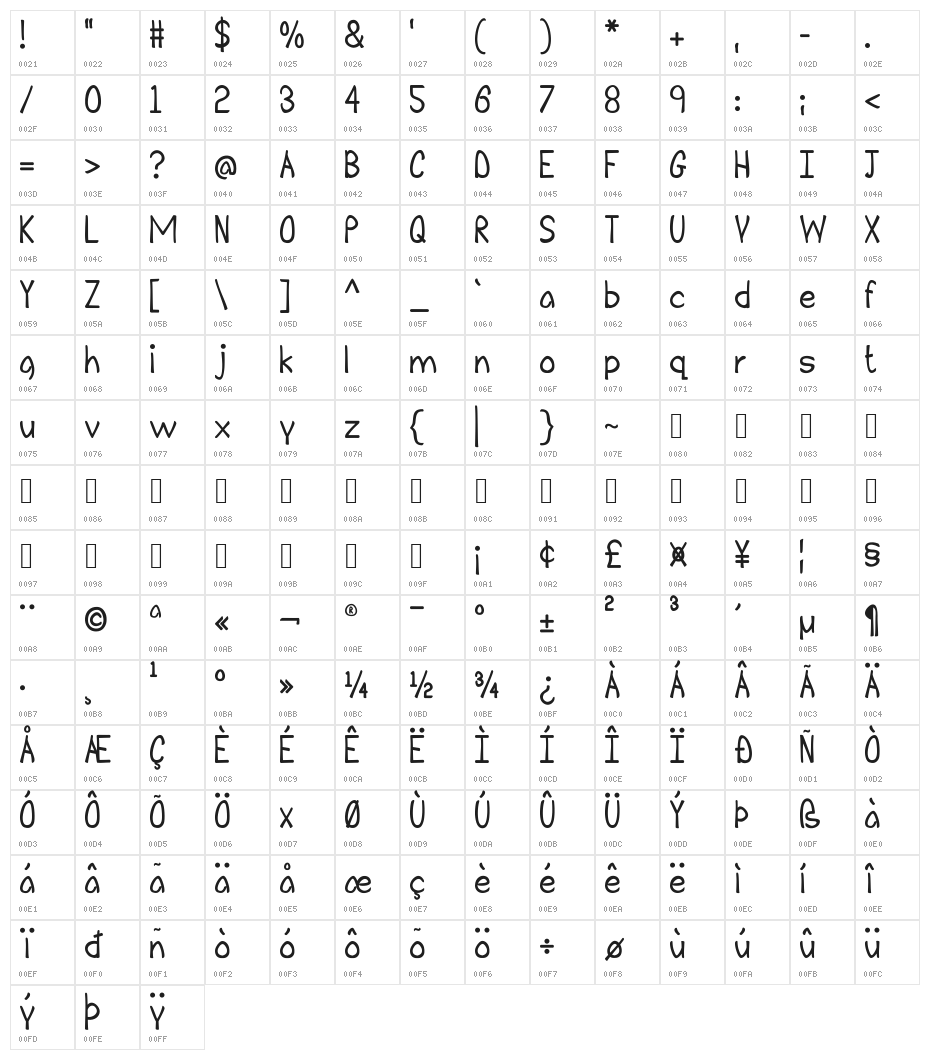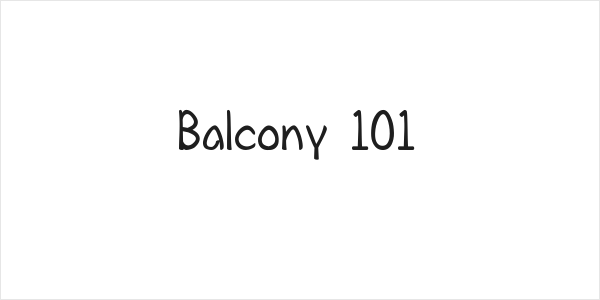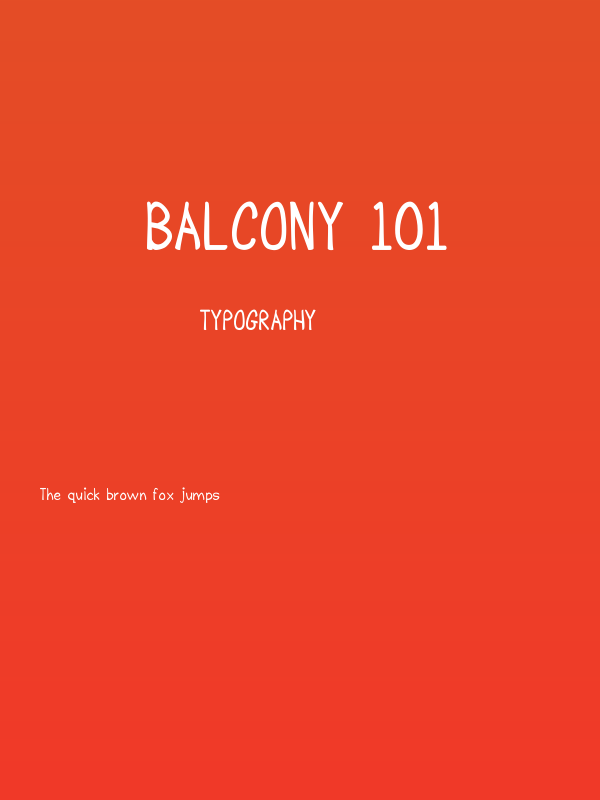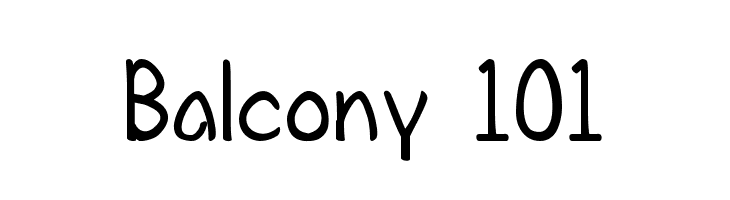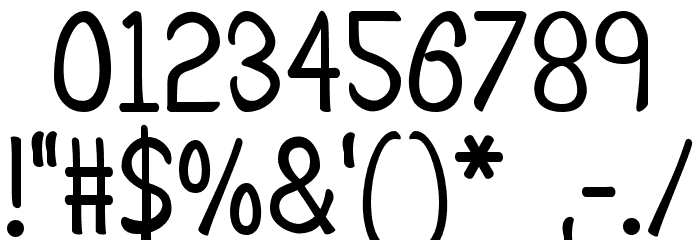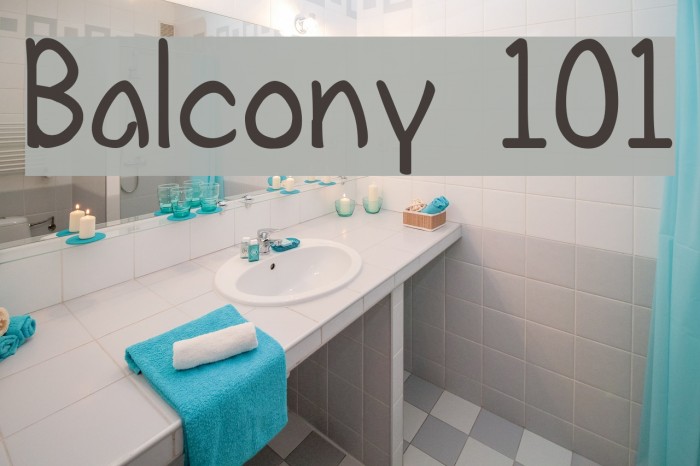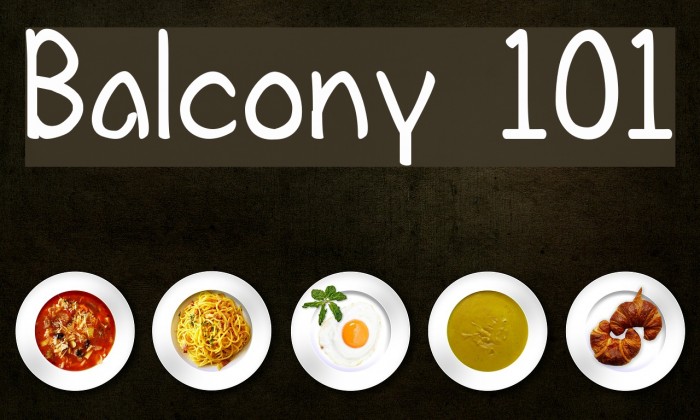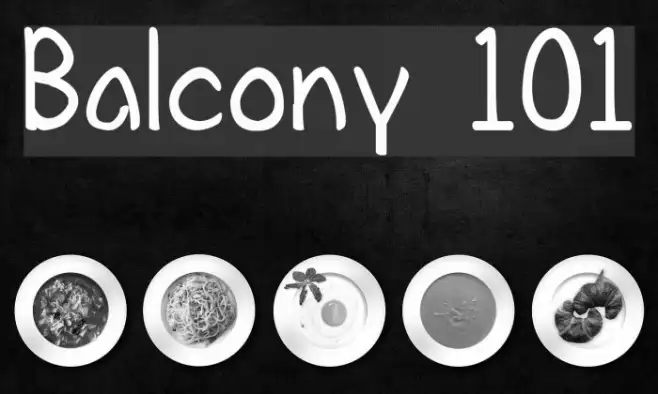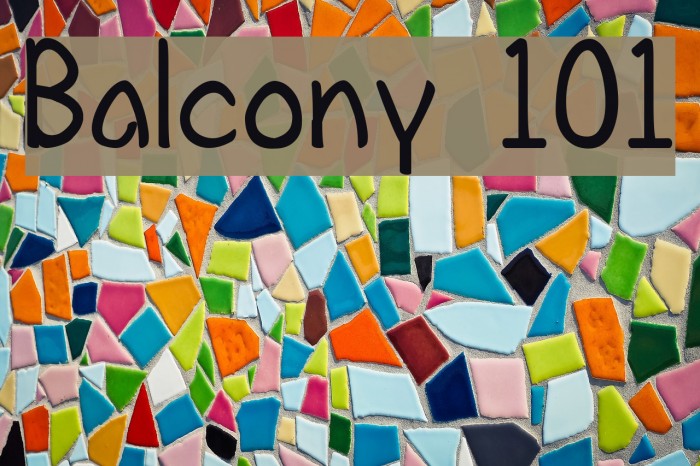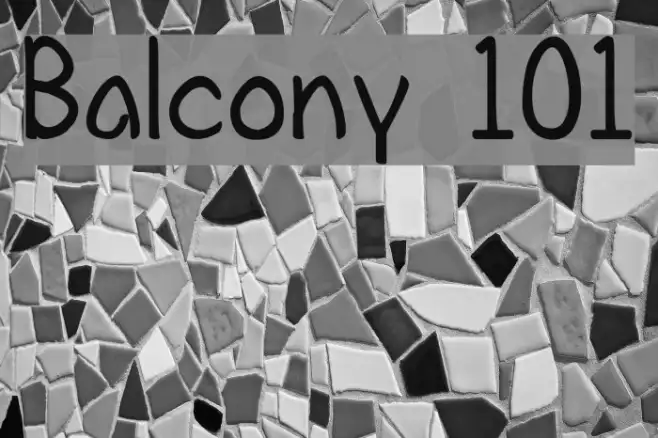
Balcony 101 Font
Balcony 101 Description
This font features a playful and casual handwritten style, characterized by its rounded and slightly irregular letterforms. The uppercase and lowercase letters maintain a consistent flow, giving it a friendly and approachable appearance. The numerals and special characters are designed to match the overall aesthetic, ensuring a cohesive look across all text. Its informal nature makes it suitable for projects that aim to convey warmth and personality.
| Use Case | Headlines, Informal text, Branding |
| Proposed Projects | Ideal for children's books, greeting cards, casual branding, and social media graphics. |